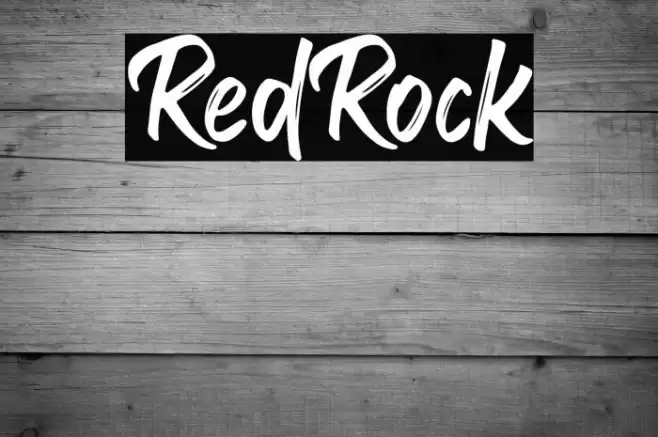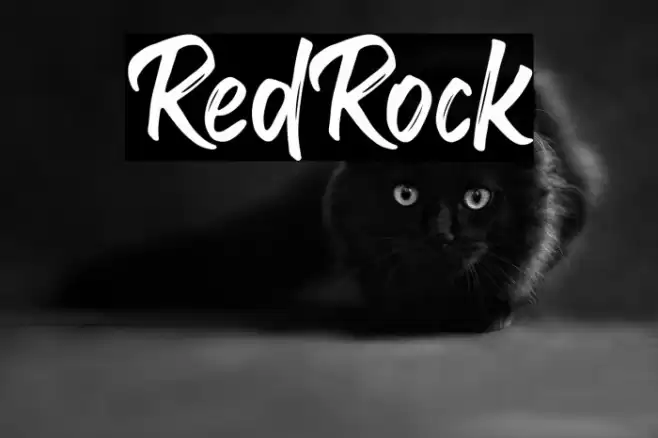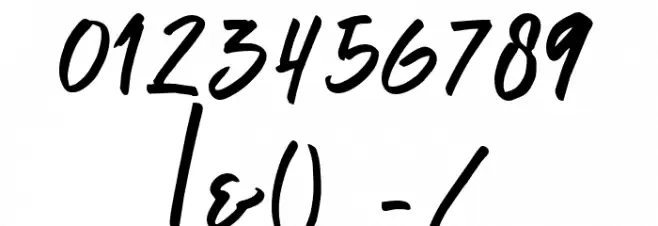
RedRock Font
RedRock Description
This font exudes a bold and energetic handwritten style, characterized by its dynamic and fluid strokes. The letters are slightly slanted, giving a sense of motion and spontaneity. The uppercase characters are robust and commanding, while the lowercase letters maintain a consistent flow, enhancing readability. Numbers and special characters follow the same lively aesthetic, making them stand out. The overall appearance is informal yet impactful, suitable for projects that require a personal touch or a creative flair.
A bold, energetic handwritten font with dynamic strokes from Regular fonts.
- Proposed Projects: Ideal for branding, posters, social media graphics, and creative projects that require a personal and lively touch.
- Overall Style: Modern, Decorative